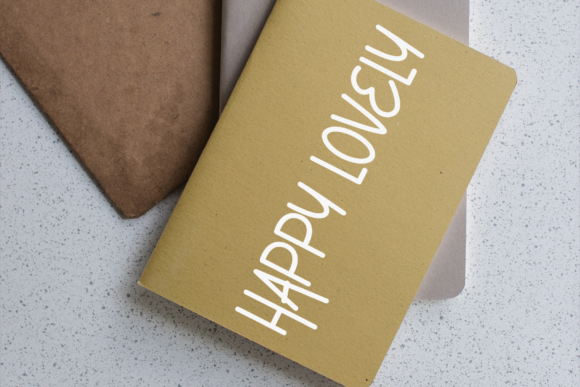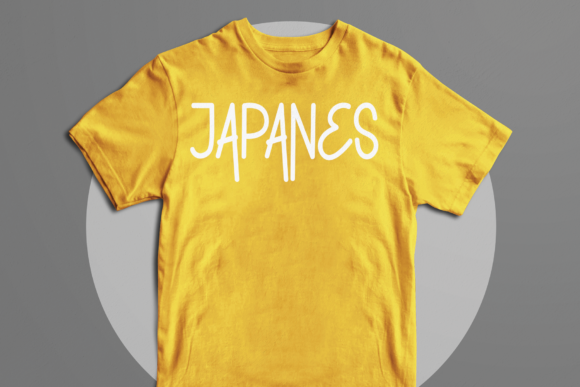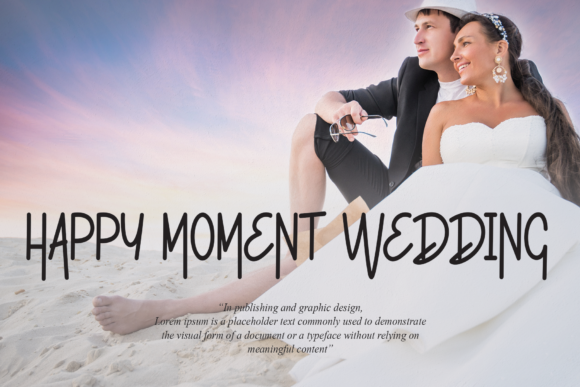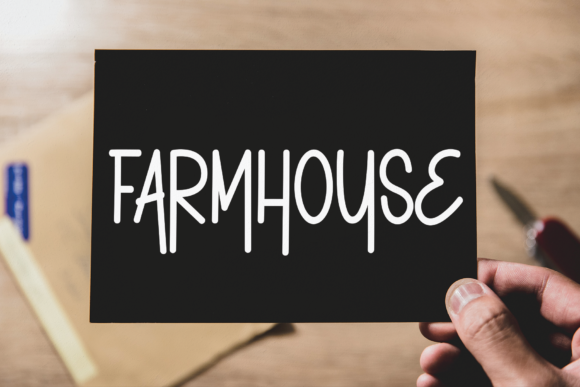
Introducing Blackout Font: The Sweet and Friendly Handwritten Font
Are you looking for a font that can add a touch of sweetness and friendliness to your designs? Look no further than Blackout Font! This beautiful handwritten font is perfect for designers and crafters who want to create fun and engaging projects. In this article, we’ll take a closer look at Blackout Font, its features, and how you can use it to elevate your designs.
What is Blackout Font?
Blackout Font is a sweet and friendly handwritten font that is designed to add a personal touch to your designs. It’s a soft font that will look great on any design idea, from invitations and greeting cards to posters and social media graphics. With its unique and charming style, Blackout Font is sure to capture the attention of your audience and leave a lasting impression.
Features of Blackout Font
So, what makes Blackout Font so special? Here are some of its key features:
• Handwritten style: Blackout Font has a beautiful handwritten style that gives it a personal and friendly feel.
• Soft and elegant: The font has a soft and elegant appearance that makes it perfect for designs that require a touch of sophistication.
• Highly versatile: Blackout Font can be used on a wide range of design projects, from print materials to digital graphics.
• Easy to read: The font is highly legible, making it perfect for designs that require a clear and easy-to-read text.
How to Use Blackout Font
Blackout Font is a highly versatile font that can be used on a wide range of design projects. Here are some ideas to get you started:
• Invitations and greeting cards: Use Blackout Font to create beautiful and personalized invitations and greeting cards for special occasions.
• Posters and flyers: Add a touch of personality to your posters and flyers with Blackout Font.
• Social media graphics: Use Blackout Font to create engaging and fun social media graphics that will capture the attention of your audience.
• Branding and packaging: Use Blackout Font to create a unique and recognizable brand identity for your business.
Tips for Using Blackout Font
Here are some tips to help you get the most out of Blackout Font:
• Pair it with other fonts: Experiment with pairing Blackout Font with other fonts to create a unique and interesting contrast.
• Use it in different sizes: Use Blackout Font in different sizes to create visual interest and hierarchy in your designs.
• Experiment with colors: Try using Blackout Font in different colors to add a pop of color to your designs.
Blackout Font is a sweet and friendly handwritten font that is perfect for designers and crafters who want to add a personal touch to their designs. With its unique and charming style, Blackout Font is sure to capture the attention of your audience and leave a lasting impression. Whether you’re creating invitations, posters, social media graphics, or branding materials, Blackout Font is a great choice. So why not give it a try and see how it can elevate your designs?
Blackout Font: The Perfect Addition to Your Design Toolbox
In conclusion, Blackout Font is a beautiful and versatile font that can add a touch of sweetness and friendliness to your designs. With its unique handwritten style, soft and elegant appearance, and high legibility, Blackout Font is perfect for a wide range of design projects. Whether you’re a designer, crafter, or DIY enthusiast, Blackout Font is a great addition to your design toolbox.